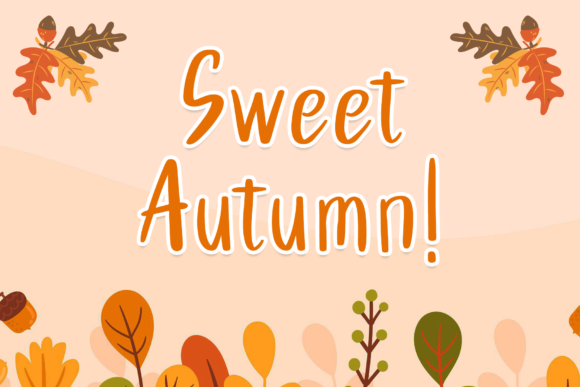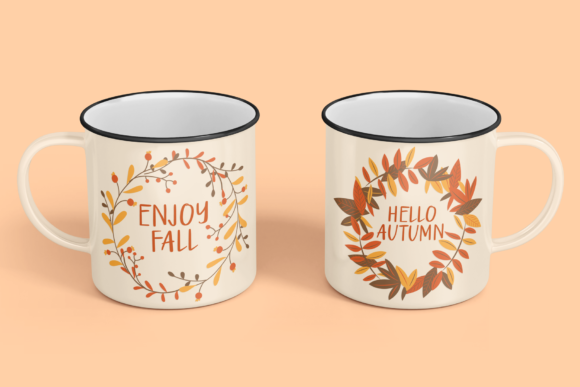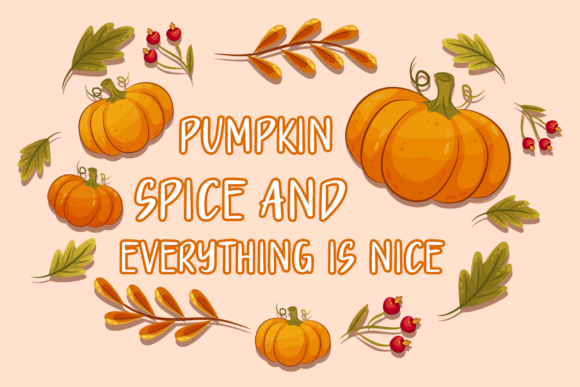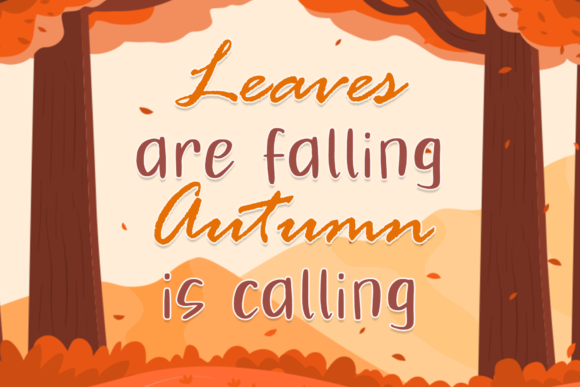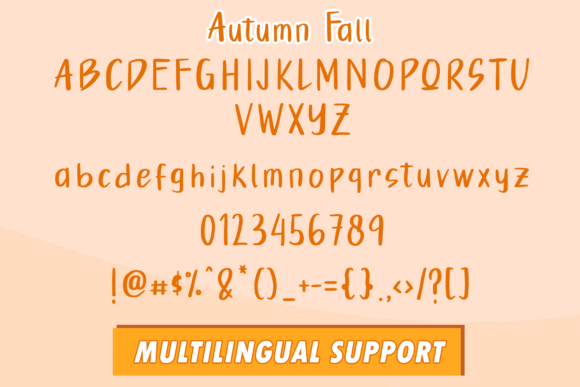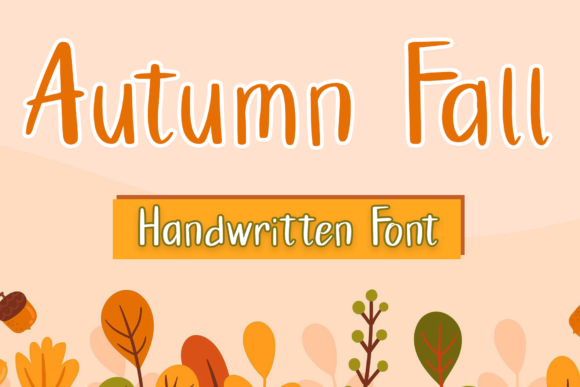
Introducing Autumn Fall Font: Elevate Your Designs with a Simple yet Stunning Handwritten Style
As the seasons change and autumn leaves start to fall, designers and crafters are on the lookout for fresh inspiration to add a touch of warmth and coziness to their creations. If you’re searching for a font that embodies the spirit of the season, look no further than Autumn Fall Font. This beautifully simple and brushed handwritten font is the perfect addition to your font library, capable of elevating any design project with its unique charm.
The Beauty of Autumn Fall Font
Autumn Fall Font is a true gem, boasting a simple yet elegant design that exudes a sense of sophistication and whimsy. The font’s handwritten style gives it a personal and approachable feel, making it perfect for a wide range of applications, from crafting heartfelt invitations and greeting cards to creating stunning social media graphics and blog posts.
One of the standout features of Autumn Fall Font is its versatility. No matter the topic or theme, this font seamlessly adapts to bring a touch of autumnal magic to your designs. Whether you’re creating content for a seasonal promotion, a fall-themed event, or simply looking to add a pop of personality to your brand’s visual identity, Autumn Fall Font is the perfect choice.
Key Features of Autumn Fall Font
- Simple and Brushed Handwritten Style: Autumn Fall Font boasts a beautiful, effortless design that’s perfect for creating a sense of warmth and approachability in your designs.
- Versatile and Adaptable: This font is suitable for a wide range of applications, from invitations and greeting cards to social media graphics and blog posts.
- Elegant and Whimsical: Autumn Fall Font strikes the perfect balance between sophistication and playfulness, making it ideal for designers and crafters looking to add a touch of personality to their creations.
Why Choose Autumn Fall Font?
With so many fonts available, it’s easy to get lost in a sea of options. So why choose Autumn Fall Font? Here are just a few reasons why this font stands out from the crowd:
- Unique and Eye-Catching: Autumn Fall Font is a true standout, offering a distinctive design that’s sure to capture attention and leave a lasting impression.
- Easy to Read and Pair: The font’s clear and legible design makes it easy to read, even at smaller sizes. Plus, its versatility allows it to pair beautifully with a wide range of other fonts and design elements.
- Perfect for Seasonal and Timeless Designs: Whether you’re creating seasonal content or looking for a font that will stand the test of time, Autumn Fall Font is an excellent choice.
Tips for Using Autumn Fall Font
Now that you’ve fallen in love with Autumn Fall Font, here are some tips for incorporating it into your designs:
- Mix and Match with Other Fonts: Don’t be afraid to experiment with pairing Autumn Fall Font with other fonts and design elements to create a unique look that reflects your brand’s personality.
- Use for Headings and Titles: Autumn Fall Font is perfect for creating eye-catching headings and titles that draw attention and add visual interest to your designs.
- Add a Personal Touch: Use Autumn Fall Font to add a personal and approachable feel to your designs, making them more relatable and engaging for your audience.
Autumn Fall Font is a true gem that’s sure to become a staple in your font library. With its simple yet stunning handwritten design, versatility, and adaptability, this font is perfect for designers and crafters looking to elevate their creations and add a touch of autumnal magic to their designs. So why wait? Download Autumn Fall Font today and start creating stunning designs that capture the essence of the season!